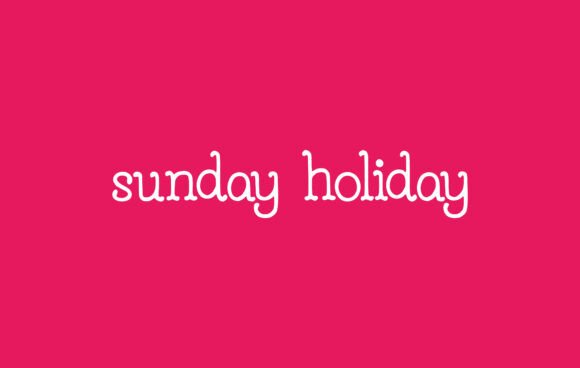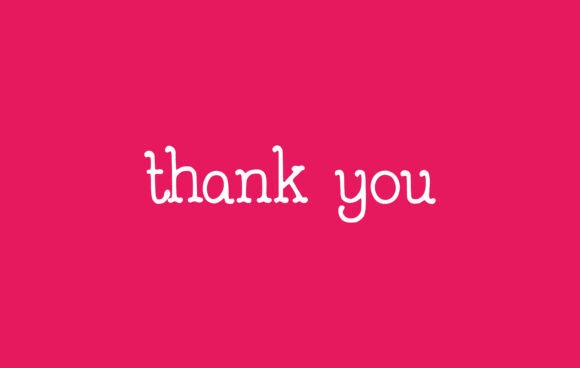
Enter the Bacaba Font, a true gem that’s been designed to captivate and inspire. This authentic handwritten font boasts a romantic touch, making it an ideal choice for a wide range of creative projects. From magazine headlines to social media posts, wedding invitations to branding materials, the Bacaba Font is the perfect design resource to take your ideas to the next level.
Key Features of Bacaba Font
- Unique characteristics include a modern and minimalist aesthetic, perfect for contemporary design projects
Honest Review: Bacaba Font
The Bacaba Font is available for free download, which is a huge plus. Its transparent background makes it versatile for use in various design applications, from logos to typography. The font’s modern and sleek design is sure to add a touch of sophistication to any project.
- High-quality design: The Bacaba Font is meticulously crafted, ensuring a polished and professional look.
- Limited font styles: The Bacaba Font currently only offers a limited range of font styles.
- Not suitable for bold typography: The font may not be the best choice for projects that require bold, attention-grabbing typography.
Overall, the Bacaba Font is a solid addition to any designer’s toolkit. While it may not be perfect, its high-quality design and transparent background make it a valuable resource for any creative project.
Bacaba Font
Tips for Getting the Most Out of Bacaba Font
To get the most out of the Bacaba Font, experiment with different font sizes and styles to create a unique and eye-catching design. You can also use the font in combination with other design elements, such as images and graphics, to create a visually appealing design.
The Bacaba Font is perfect for a variety of creative projects, including business cards, brochures, and social media graphics. Its unique style and transparent background make it a great choice for designers looking to add a touch of elegance to their designs.